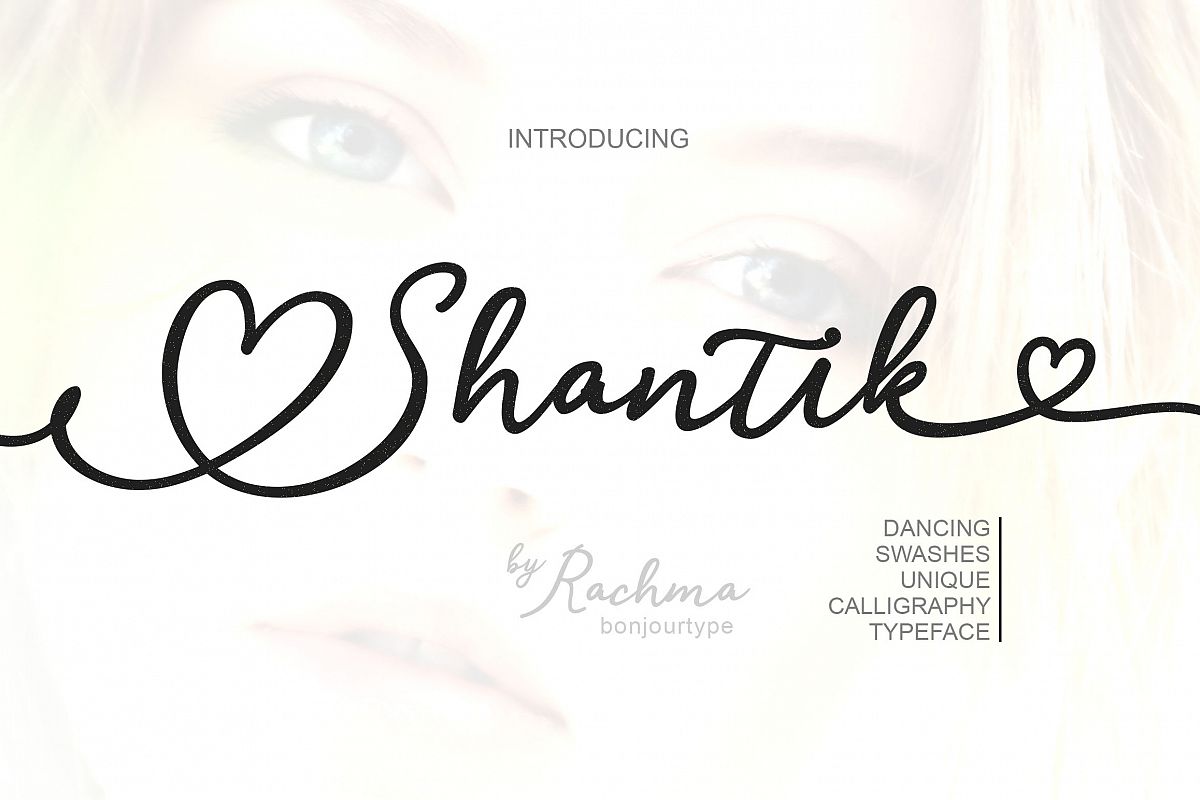
Shantik Script
Shantik-Regular
Shantik is Beautiful Word originating from English and translated into Indonesian, Shantik Script is a really beautiful and unique font with beautiful swash fonts.It is suitable for greeting cards, quotes, invitations, printable, such as posts, signatures, logos, wedding invitations, t-shirts, letterhead, signage, labels, news, posters etc.